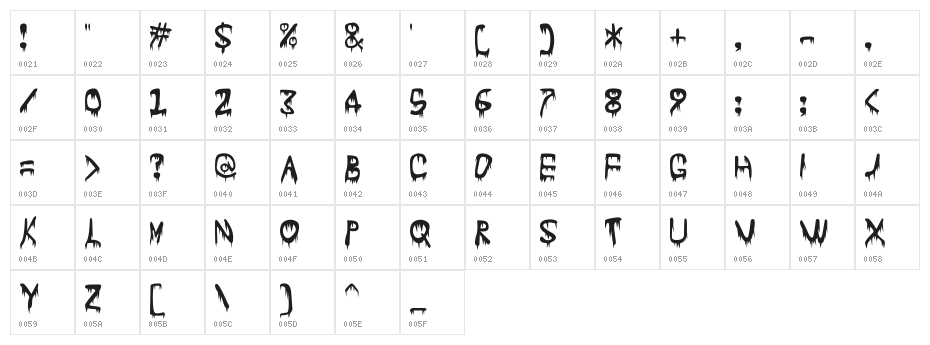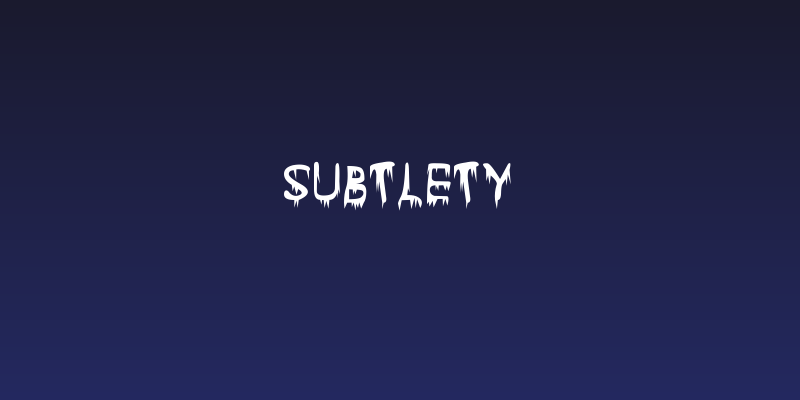
Subtlety Font
Subtlety Description
This font features a unique and dramatic style with sharp, jagged edges that give it a dripping or melting appearance. The characters are bold and eye-catching, making it ideal for themes that require a spooky or eerie vibe. The uppercase and lowercase letters maintain a consistent design, with exaggerated points and curves that enhance its distinctive look. Numbers and special characters follow the same aesthetic, ensuring a cohesive appearance across all text elements. This font is perfect for creating a sense of mystery or horror, making it suitable for Halloween-themed projects or any design that needs a touch of the macabre.
Proposed ProjectsIdeal for Halloween invitations, horror movie posters, themed party decorations, and spooky event flyers.